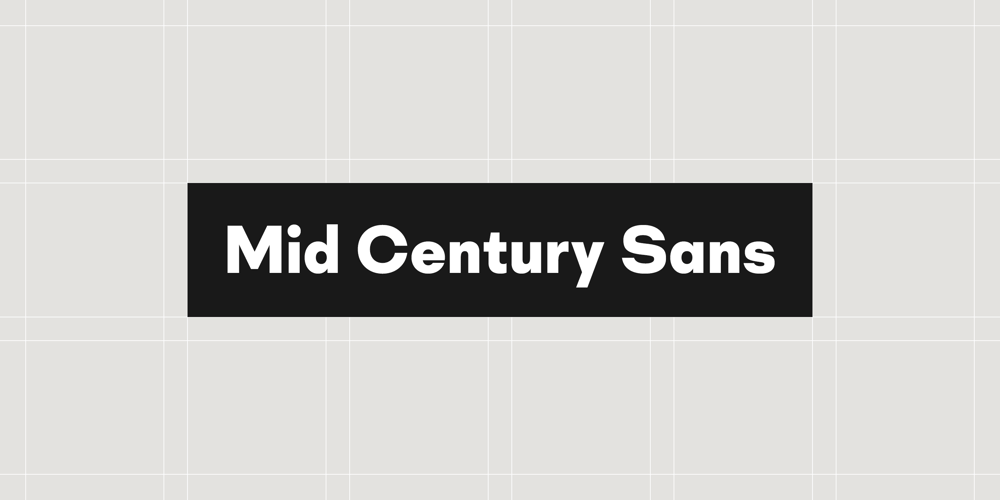
Mid Century Sans Font Family was designed by Ryoichi Tsunekawa and published by Dharma Type. Mid Century Sans contains 16 styles and family package options. Mid Century Sans (MCS) is composed of high-geometric shapes. László Moholy-Nagy —professor in the Bauhaus— said “Typography is a tool of communication. It has to be communication in its most intense form. The emphasis must be on absolute clarity since this distinguishes the character of our own writing from that of ancient pictographic forms.” As same as you can see in modern typefaces in the early twentieth century, MCS has very efficient, clear and minima letterforms. There are not any decorative parts in the skeleton of letters. At the same time, Mid Century Sans has one more feature. In the middle of the twentieth century, one big movement which was called Mid-century modern had occurred. The Mid-century modern movement in the U.S. was an American reflection of the International and Bauhaus movements and it was slightly more organic in form and less formal than the International Bauhaus-style. In other words, it was friendly and stylish. We added Mid-century-spices to the Bauhaus-modernism. The basic letter form is geometric yet it has very friendly strokes and human touch. Mid Century Sans consists of 8 weights and their matching Italics for a wide range of usages. Farther, Mid Century Sans is supporting international Latin languages and basic Cyrillic languages including Basic Latin, Western Europe, Central and South-Eastern Europe. Also MCS covers Mac Roman, Windows1252, Adobe1 to 3. This wide range of international characters expands the capability of your works. Lowercase “a” has OpenType stylistic alternates for advanced typography.